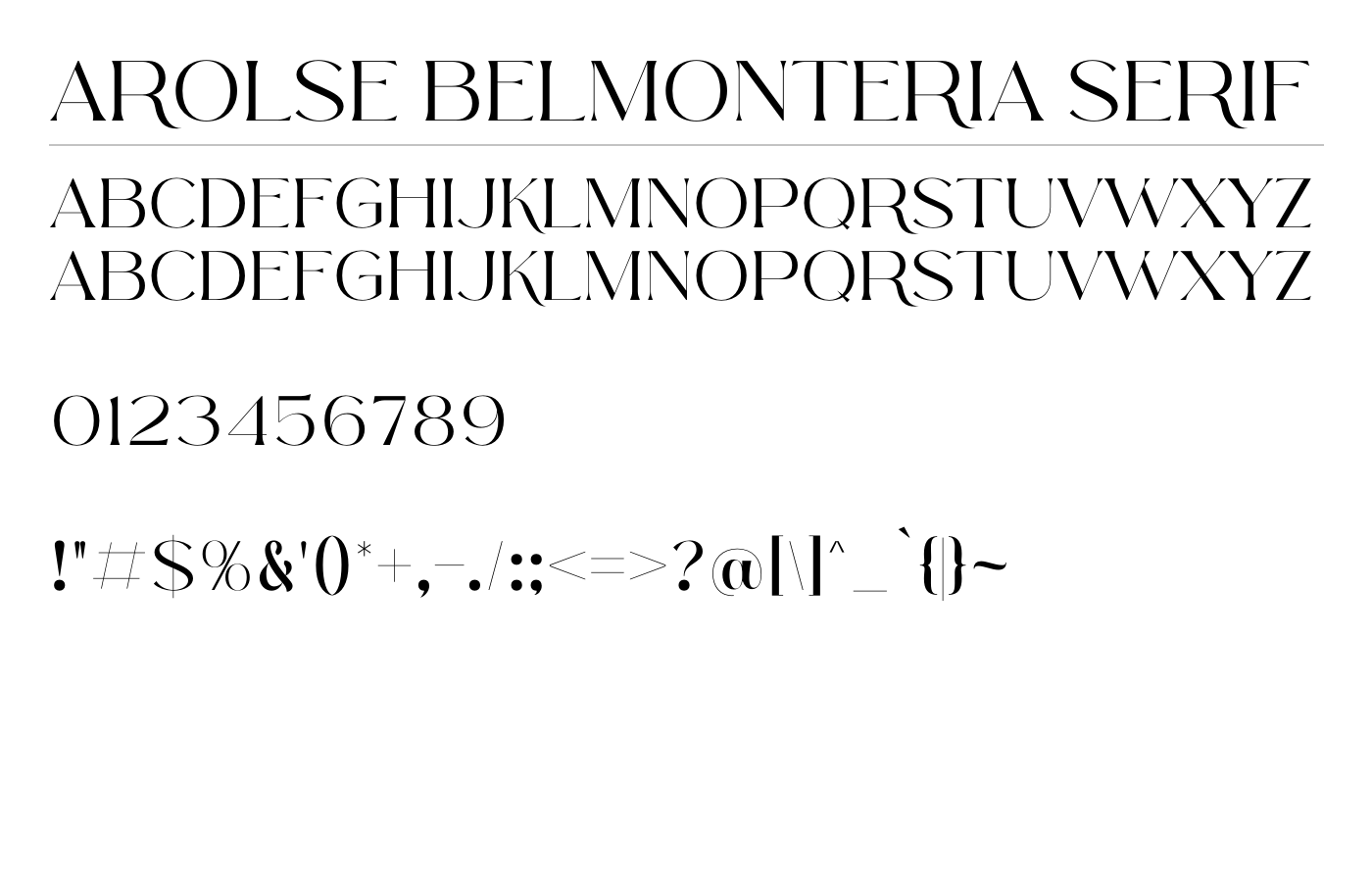
Arolse Belmonteria Serif is an elegant, high-contrast serif font with thin, sharp strokes and delicate bracketed serifs that create a refined, sophisticated look. Its tall, narrow letterforms and unique details like the curved tail on the R make it ideal for luxury branding, fashion headlines, and editorial designs where a modern yet classic feel is desired. This font works best in display settings where its graceful style can shine, adding a sense of exclusivity and style.
Arolse Belmonteria Serif Font
About Arolse Belmonteria Serif Font